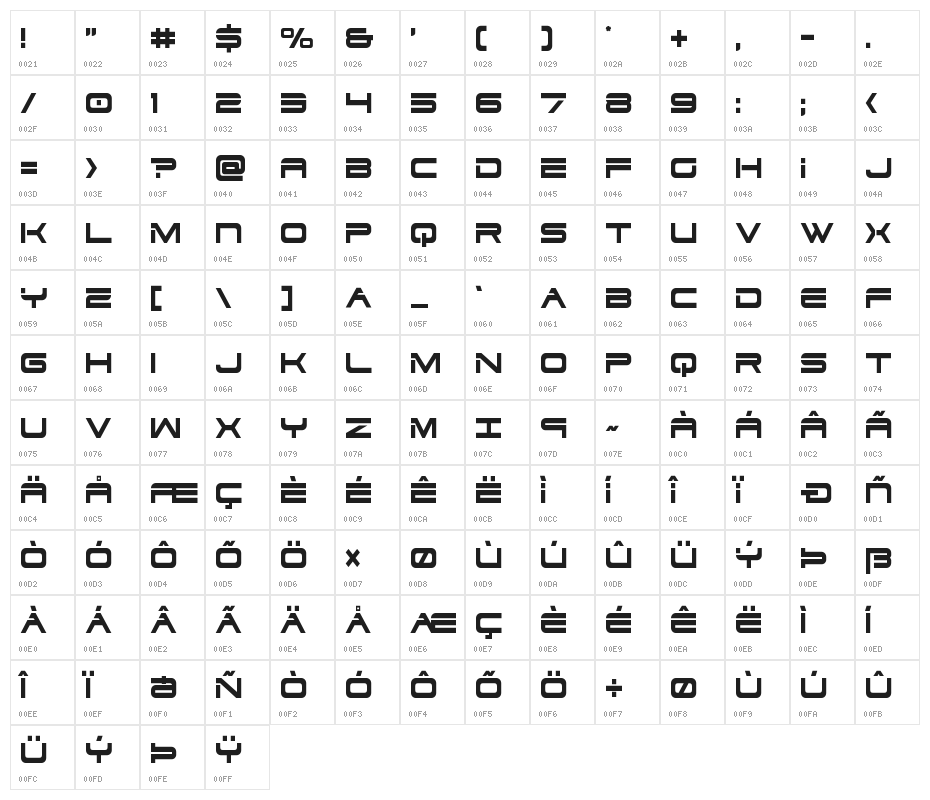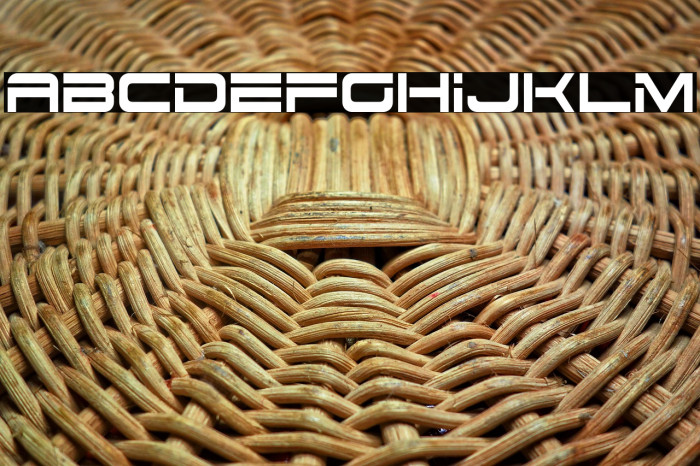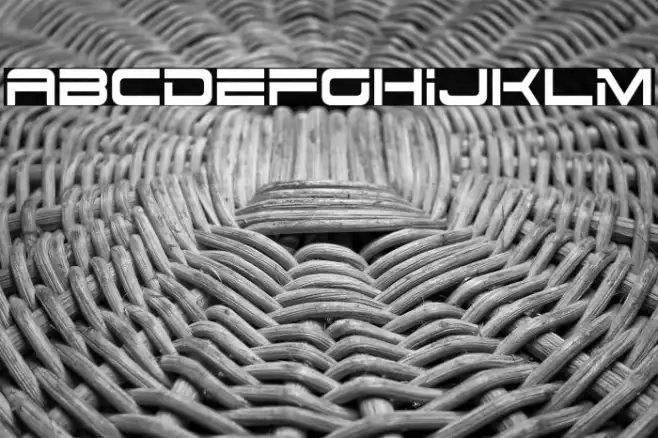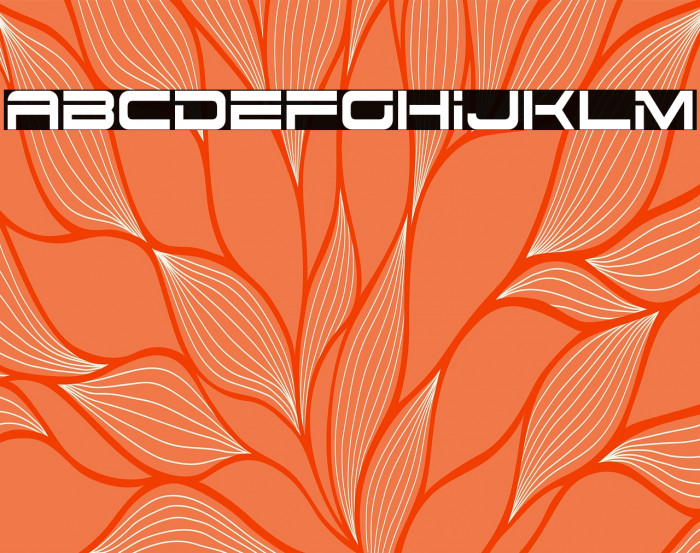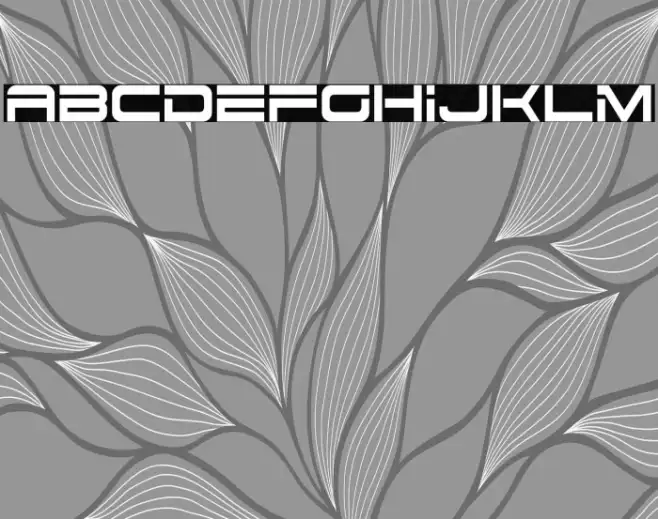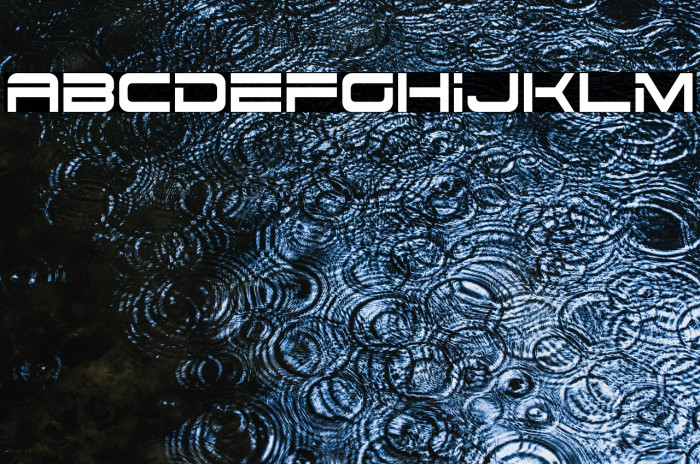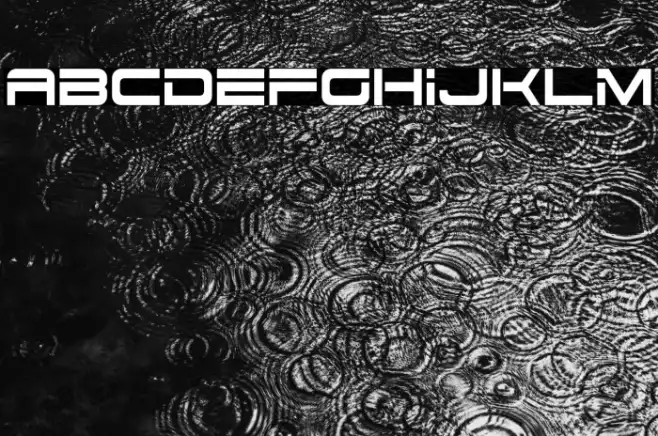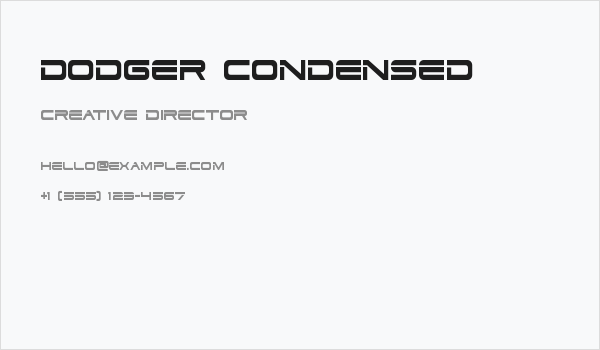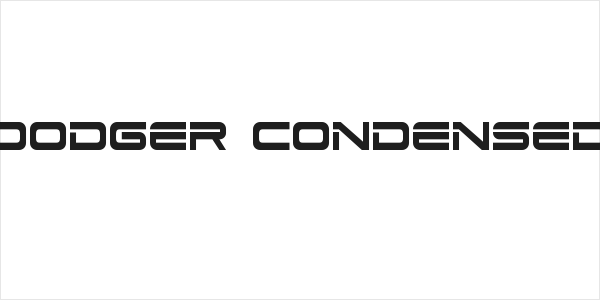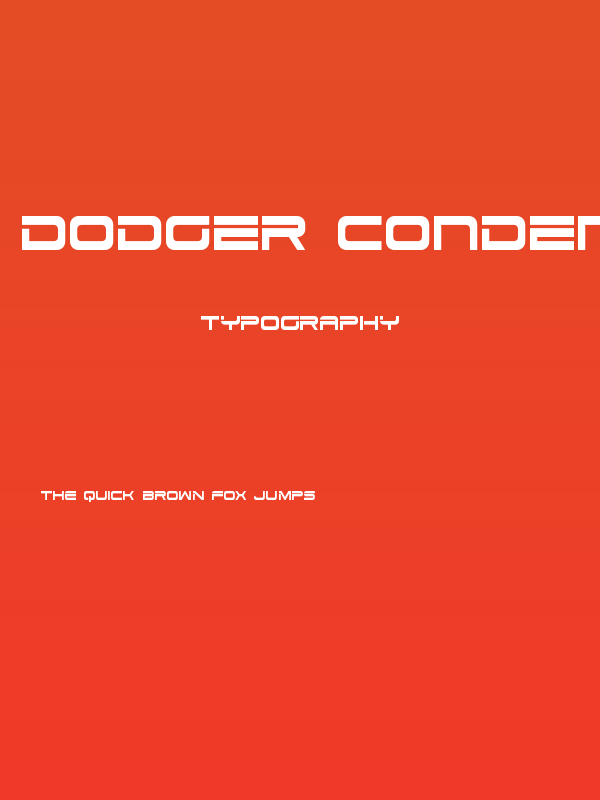
Dodger Condensed Font
Dodger Condensed Description
This font features a futuristic and geometric design with a distinctly modern appeal. The characters are bold and condensed, with a strong emphasis on horizontal and vertical lines, creating a structured and compact appearance. The angular shapes and sharp edges give it a tech-inspired look, making it suitable for contemporary and digital-themed projects. The uniformity in stroke width across all characters provides a cohesive and balanced aesthetic. The numerals and special characters maintain the same stylistic elements, ensuring consistency throughout the font.